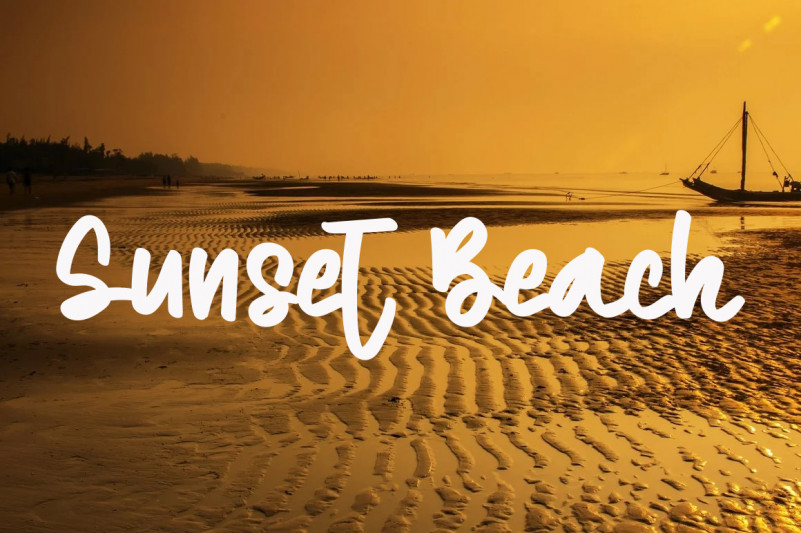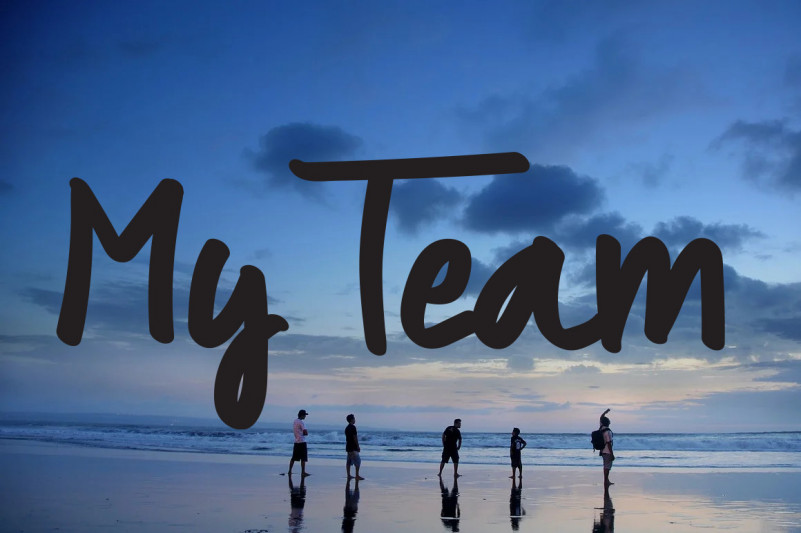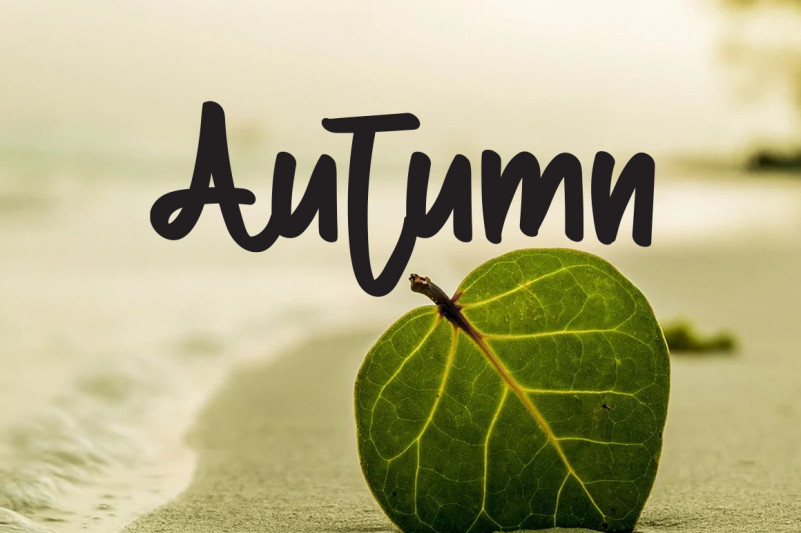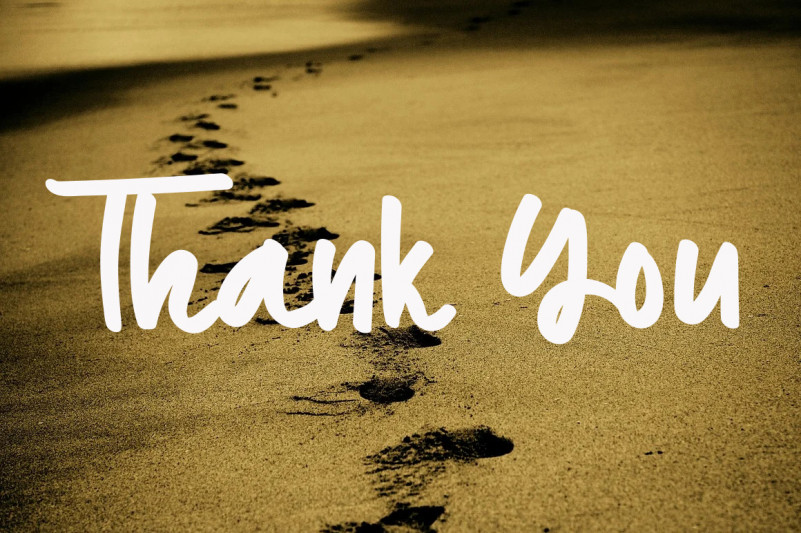
Beach Wedding Font
It’s a cute paint brushed handwritten font. It is defined by smooth curves and is perfect for fashion branding or editorial designs. Add it confidently to your projects, and you will love the results.